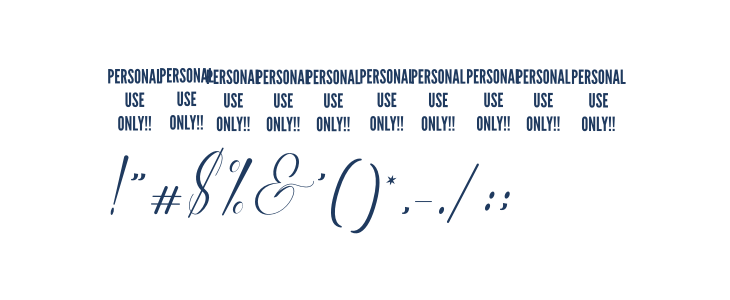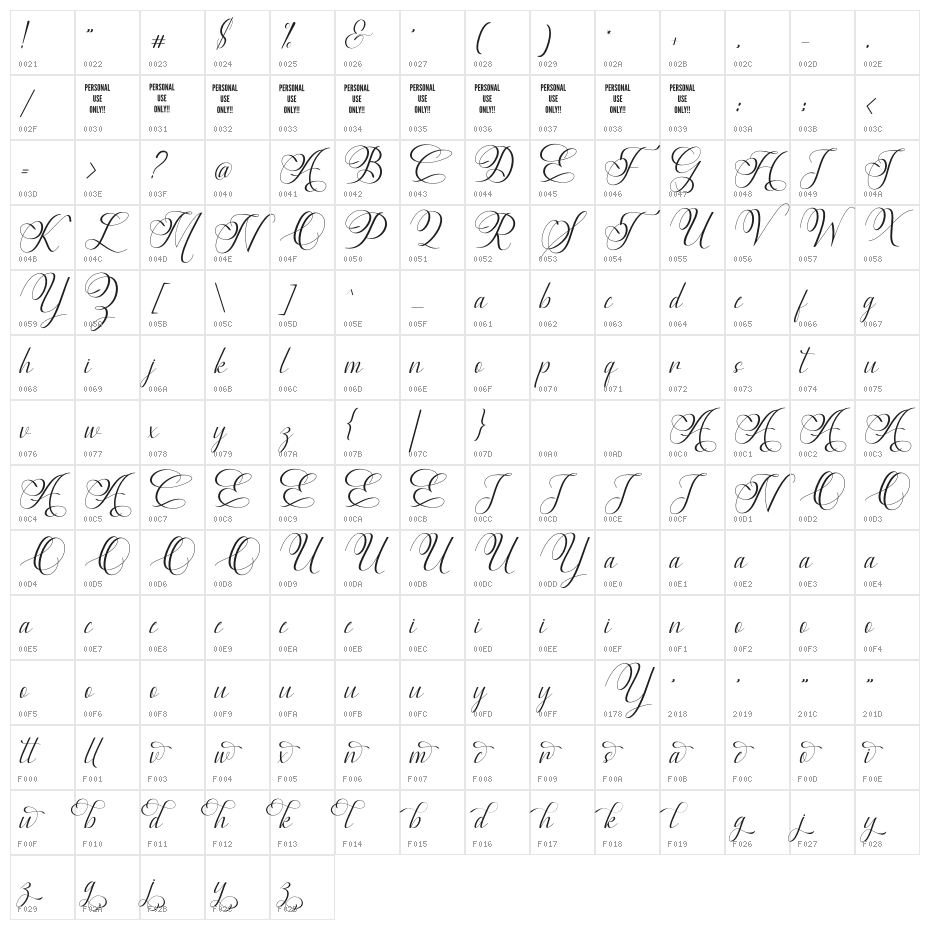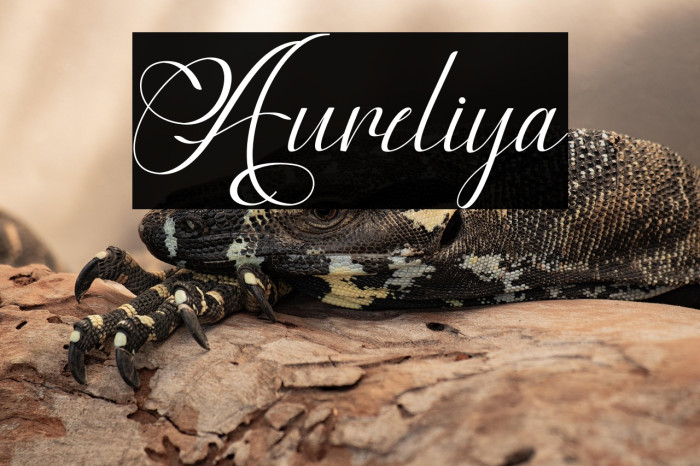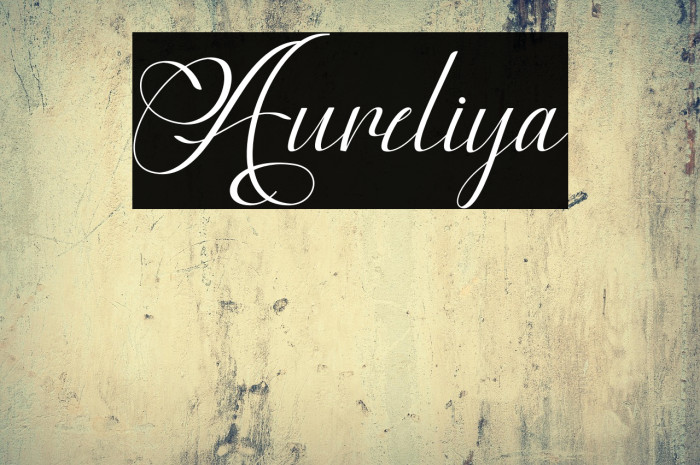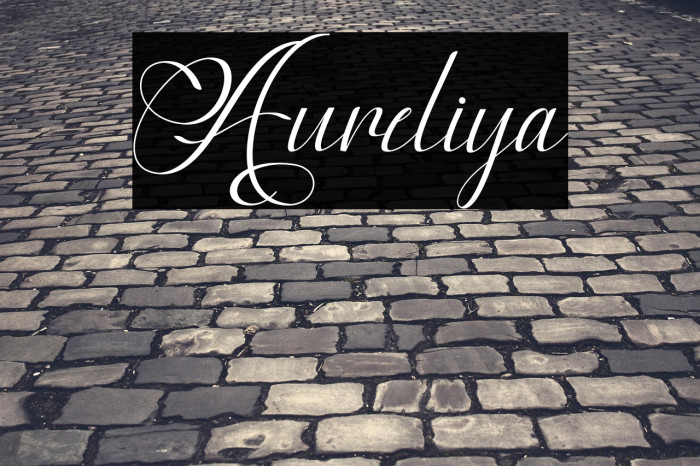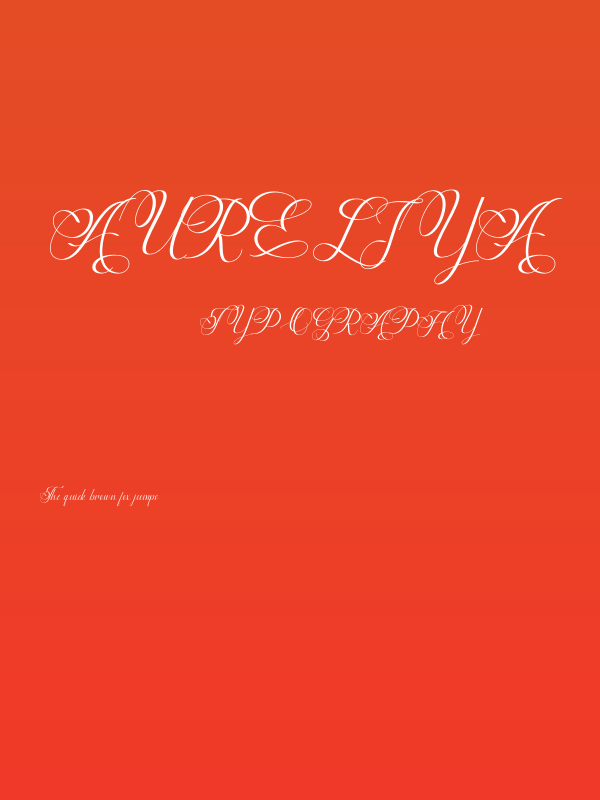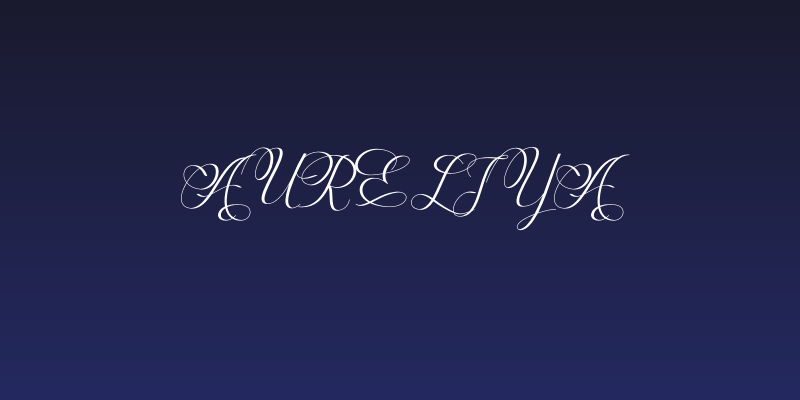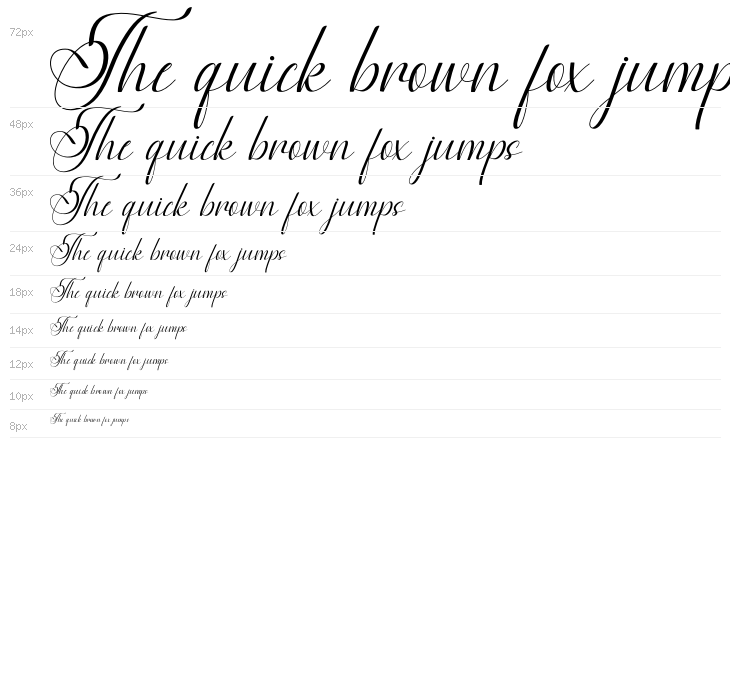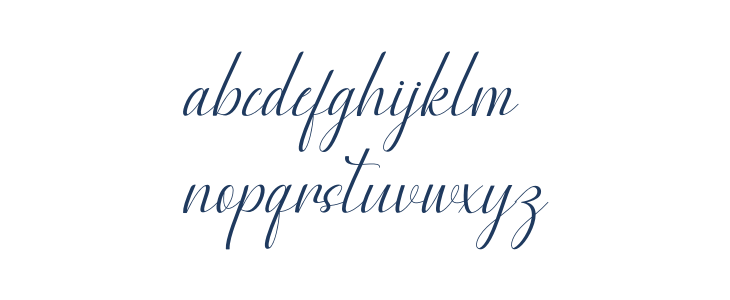
Aureliya Font
Aureliya Description
This elegant script font features intricate and flowing letterforms, characterized by elaborate swirls and flourishes. The uppercase letters are particularly ornate, with each character displaying unique loops and curves that give a sense of sophistication and grace. The lowercase letters maintain a consistent style, offering a more streamlined appearance while still retaining the font's signature elegance. The numerals and special characters are designed to complement the overall aesthetic, ensuring a cohesive look across all text. This font is ideal for projects that require a touch of luxury and refinement.
| Proposed Projects | Wedding invitations, luxury branding, elegant stationery, high-end product packaging. |